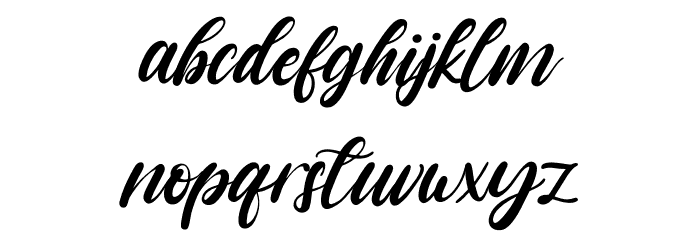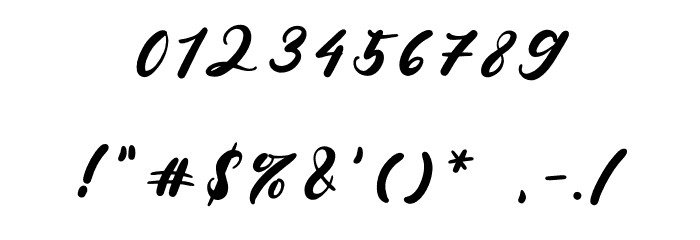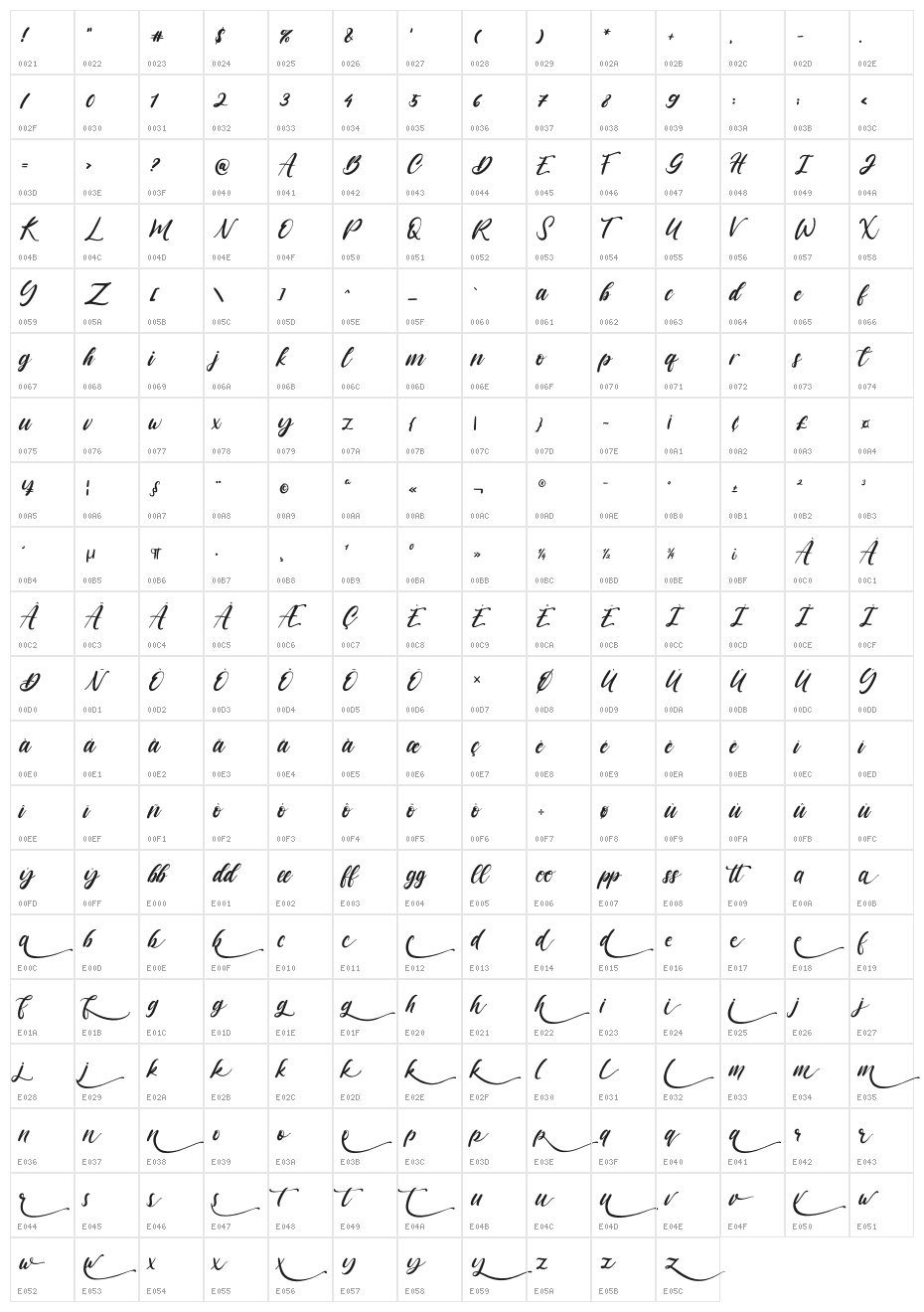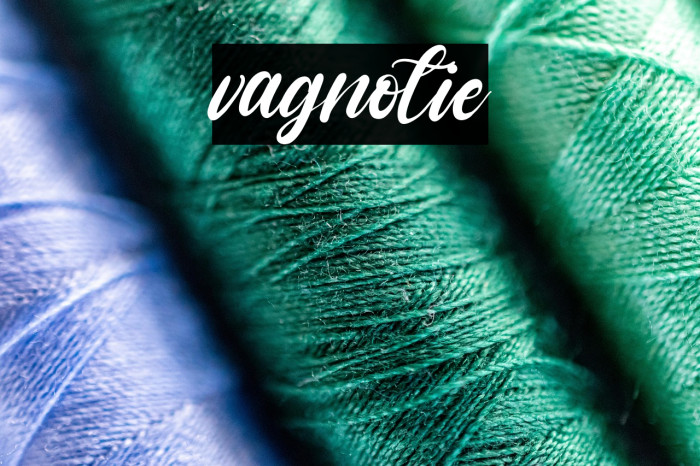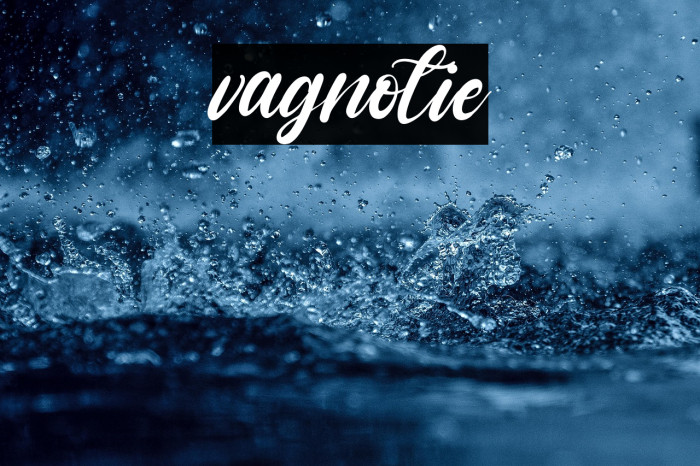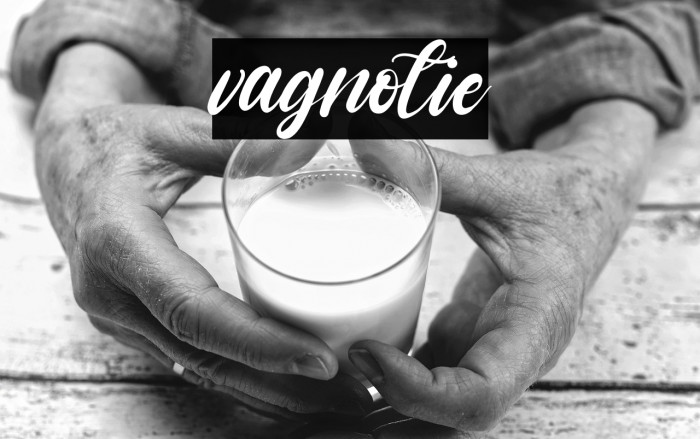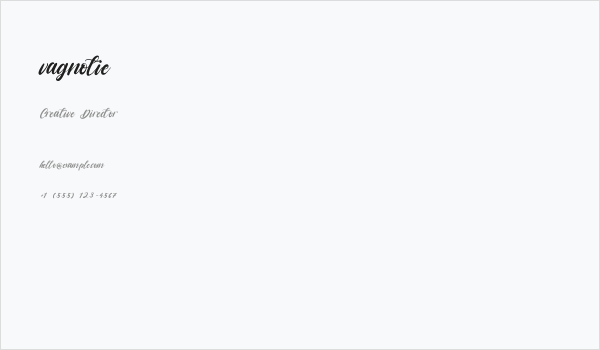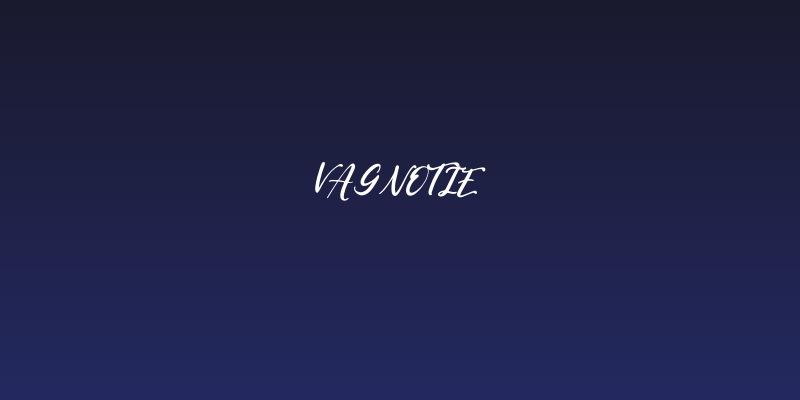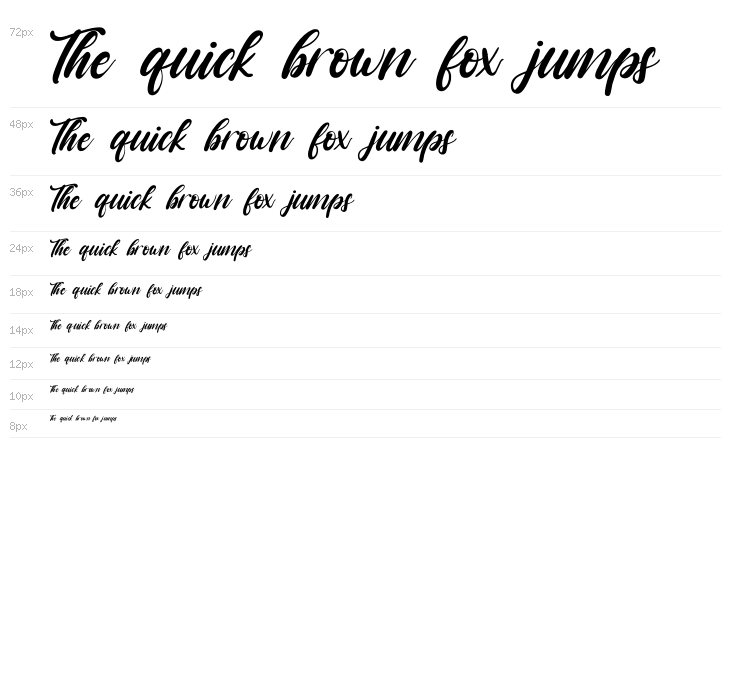
vagnotie Font
This font features a flowing, cursive style that exudes elegance and sophistication. The characters are connected in a smooth, continuous manner, reminiscent of traditional calligraphy. The uppercase letters are bold and sweeping, while the lowercase letters maintain a consistent flow with gentle curves and loops. The numerals are designed with a similar fluidity, ensuring a cohesive look across all characters. Special characters are integrated seamlessly, maintaining the overall aesthetic. This font is ideal for projects that require a touch of class and refinement.
A cursive, calligraphic font with elegant, flowing characters.
- Proposed Projects: Ideal for wedding invitations, elegant branding, greeting cards, and upscale packaging.
- Overall Style: Classic
- Use Case: Logos, Invitations, Decorative text